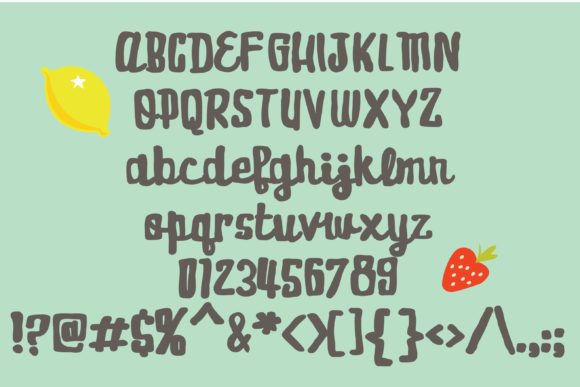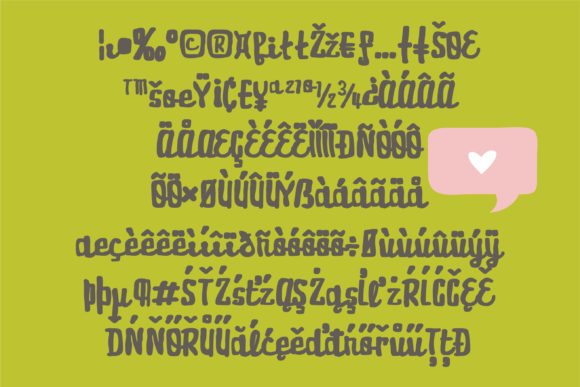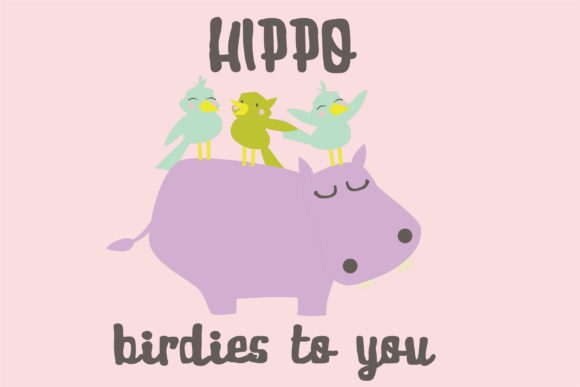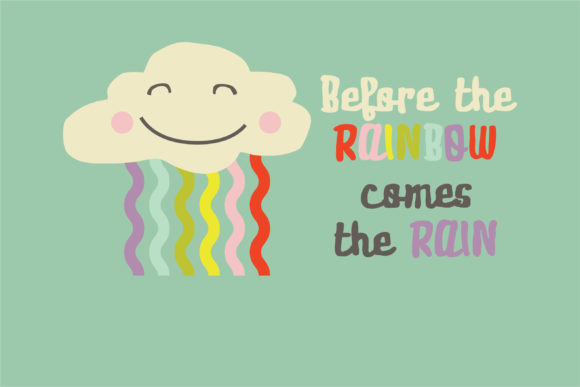
HomeScript FontsSnickerdooscript Font Script Fonts Snickerdooscript Font FacebookXPinterestWhatsApp Snickerdooscript Font Poster 2 Snickerdooscript Font Poster 3 Snickerdooscript Font Poster 4 Snickerdooscript Font Poster 5 About Snickerdooscript Font This casual hand-crafted quasi-script, has stiffly, upright lettering and a whimsical feel to it. DOWNLOAD NOW People also explored This Sweet Font Lunturan Font Shea Butter Font Achilleas Font Melvio Play Font Super Rocket Font Cimory Love Font Curve Line Font Baby Font 305 0 TagsSnickerdooscript Font Previous articleElopement FontNext articleZoopalouscript Font LEAVE A REPLY Cancel reply Comment: Please enter your comment! Name:* Please enter your name here Email:* You have entered an incorrect email address! Please enter your email address here Website: Save my name, email, and website in this browser for the next time I comment. Personal Use Free Setta Personal Use Free Read more about this font Engine Personal Use Free Read more about this font Veronica Personal Use Free Read more about this font Round Geometric Personal Use Free Read more about this font BLOG Modern Sans-Serif Fonts That Brands Love in 2025 In 2025, modern sans-serif fonts remain a top choice for brands looking to project clarity, professionalism, and... Free Fonts Risk: Why Free Fonts Can Be Dangerous for Designers To increase your work productivity, choose the most readable fonts. Best Fonts for YouTube Videos: Make Your Thumbnails Stand Out